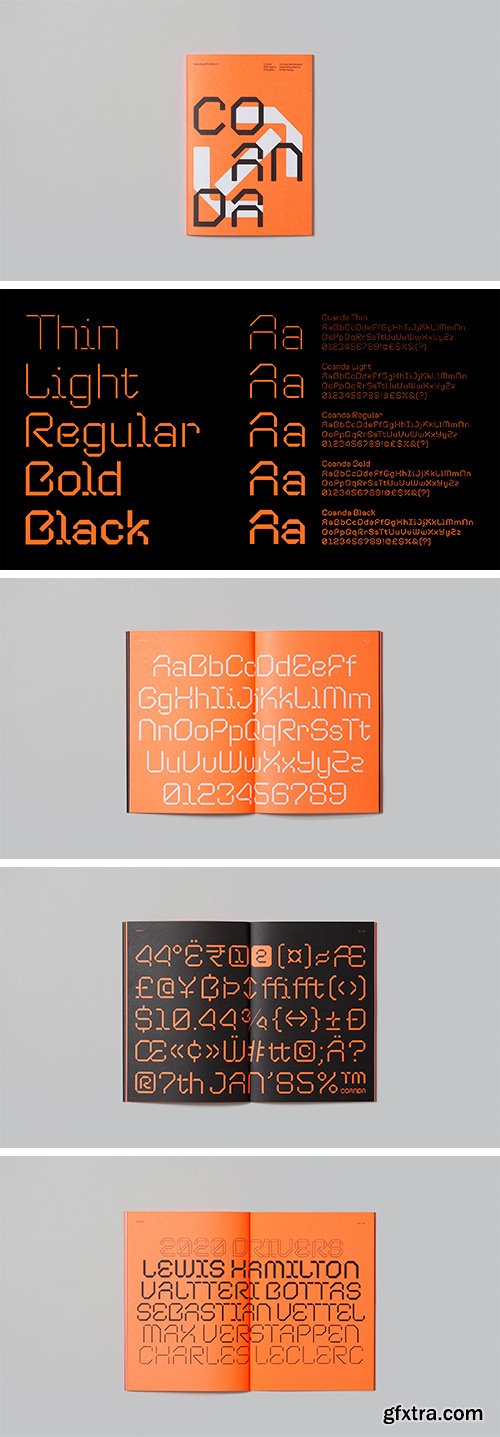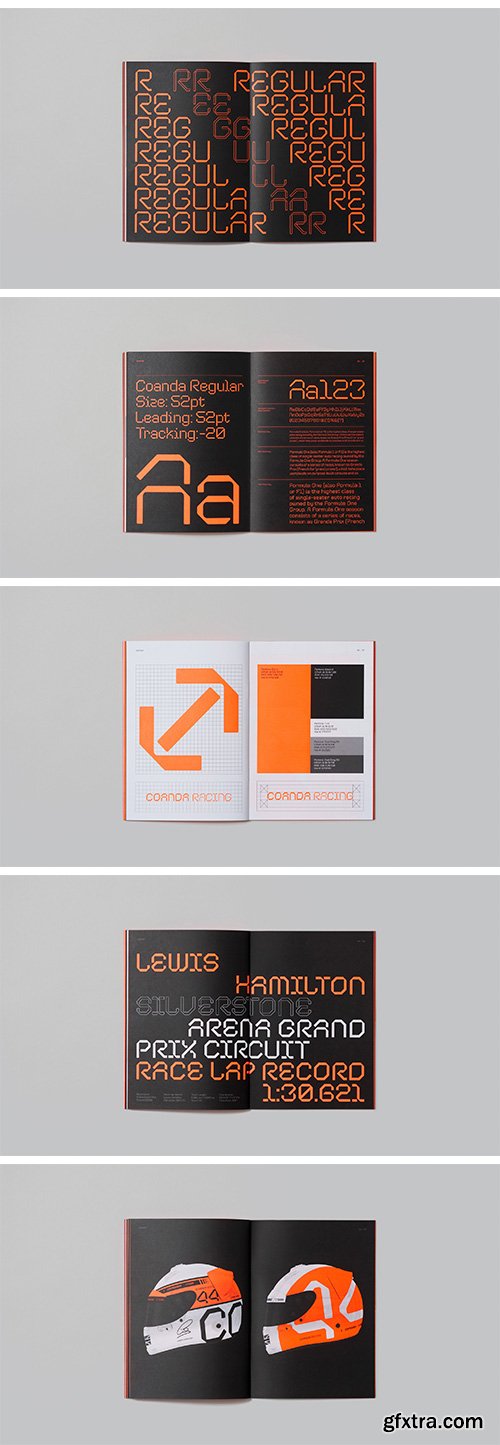
Coanda Font Family
Coanda: an ideology of the future, crafted from the past. Coanda honours the ambitious outlook of 20th century designers Wim Crouwel and Mimmo Castellano, and pays respect to the meticulous detail crafted by The Designers Republic.
Although modularity and strict measurements have been retained throughout letterforms and corner components, Coanda occasionally replaces strict rules by legibility and optical adjustment. Coanda is 95% technological and 5% human. Coanda can create an incredibly unique logotype, but also offers functionality within larger body copy. From both Eastern and Western European diacritics, to mathematical symbols & fractions, Coanda covers an incredible range of functional requirements. Four stylistic sets (including hairline alternates) give the ability to pick and choose dependent on scale and usage.